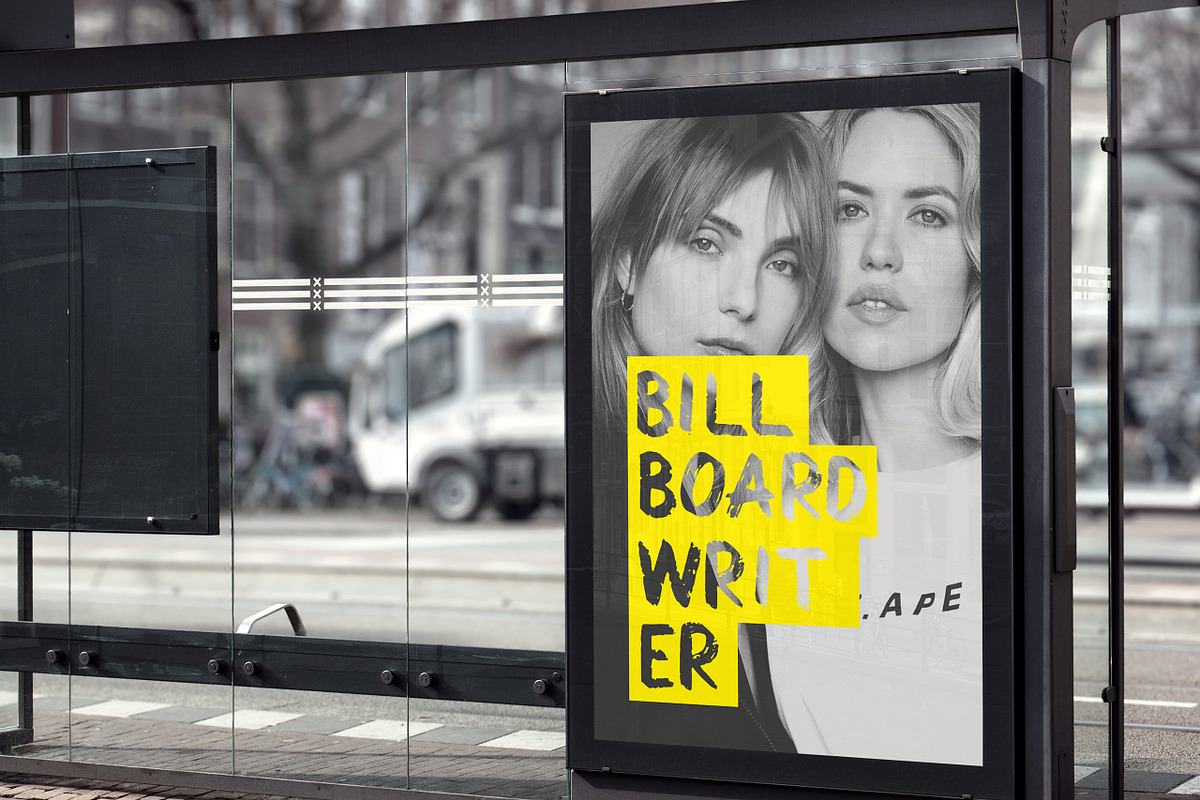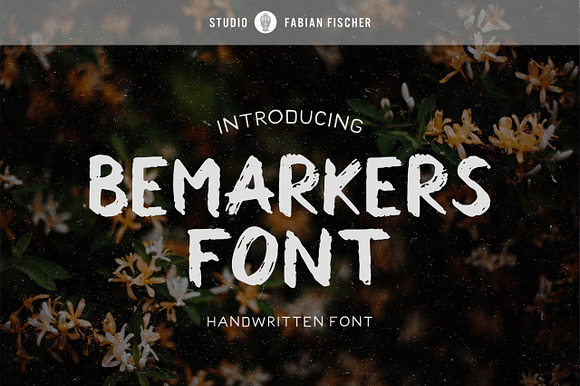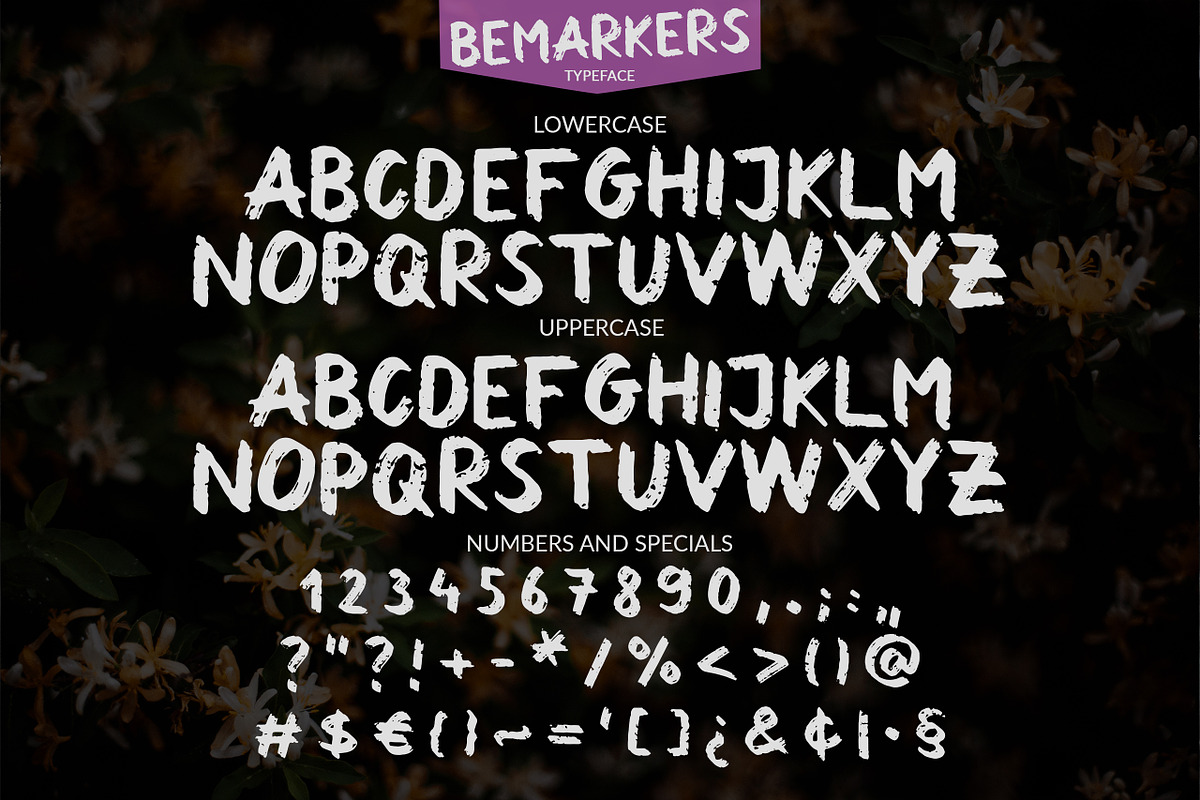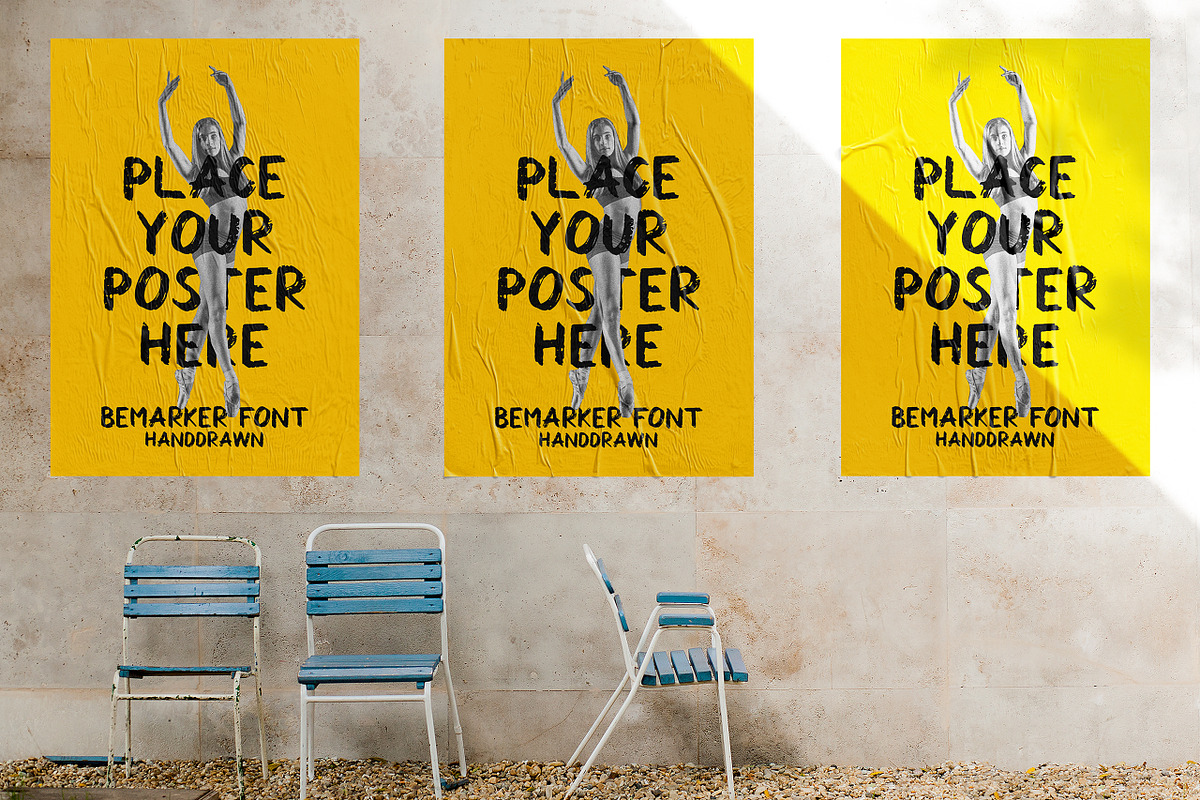
Bemarkers Font - Handwritten Font
Bemarkers Font is a handwritten font in the Sharpie Marker style. Designed are the uppercase letters for a fancy handcrafted look. It works good for rustic or vintage style work especially in the advertising industry. This will look very nice on book covers, posters or headers in magazines. Great for getting that handcrafted look you've been looking for! Use this Sharpie Marker Font in your next project!!!!
- Designed are the uppercase letters for a fancy handcrafted look.